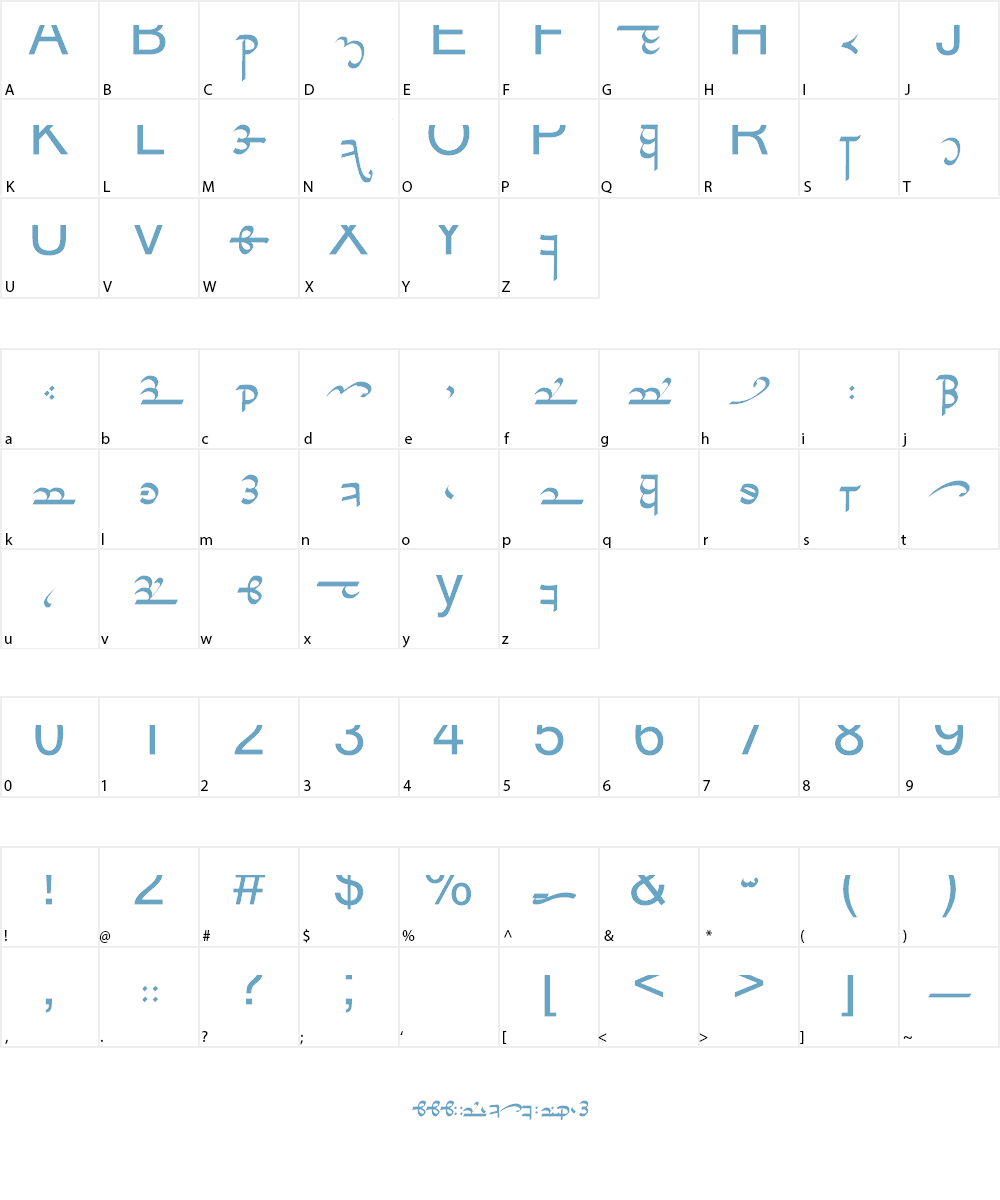
This is an experimental TrueType font based on Rúmil’s writing system, the Sarati. It was developed when only one Sarati text had yet been published, and only includes the characters used in the Early Form of the script. Since the Sarati is written vertically, for each new sarat you will have to make a line break. Then you will most likely want to adjust the line height. Oh, and to make all sarati line up, you must add a space before those sarati that aren’t preceded by a diacritic. I did mention it was experimental, didn’t I?